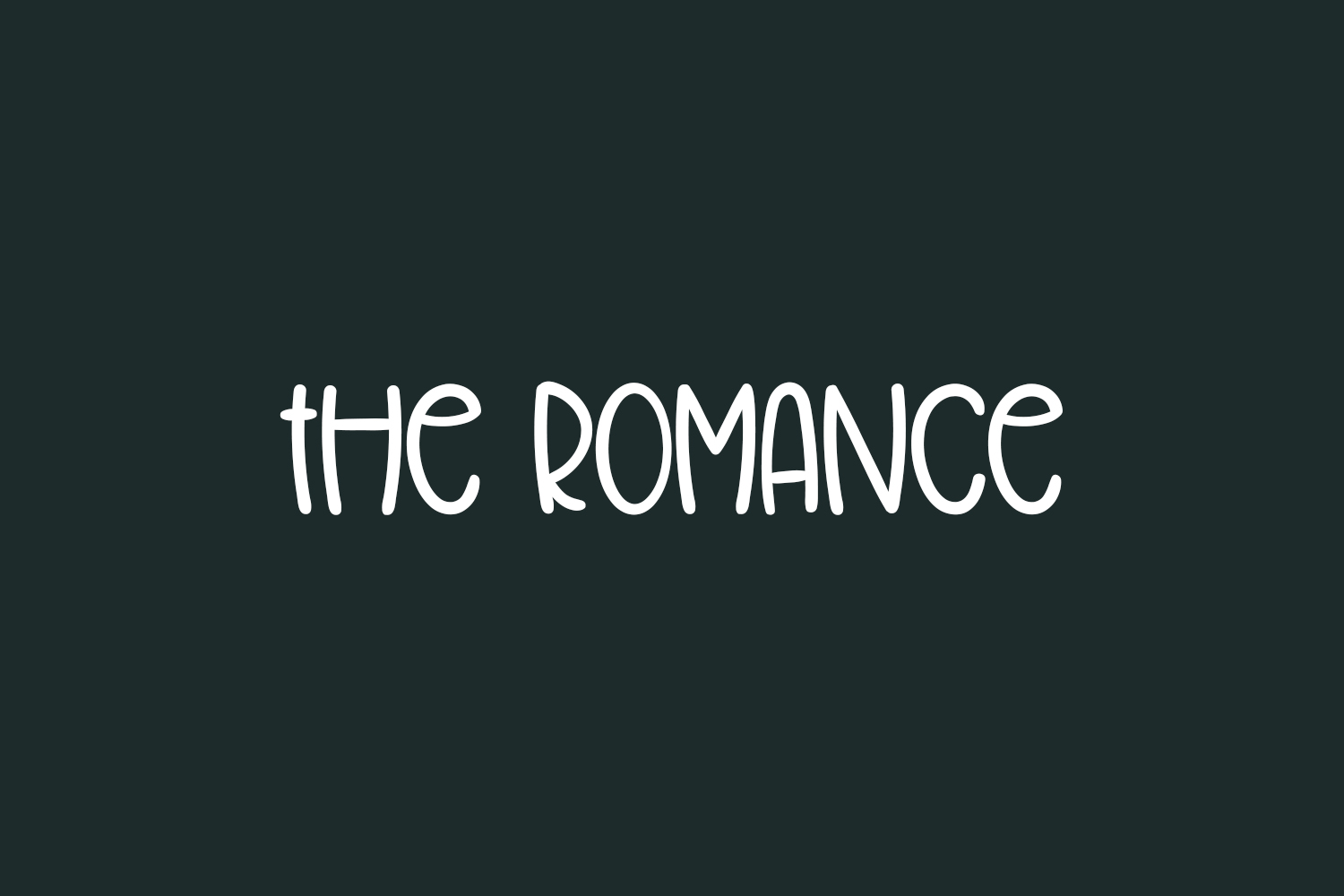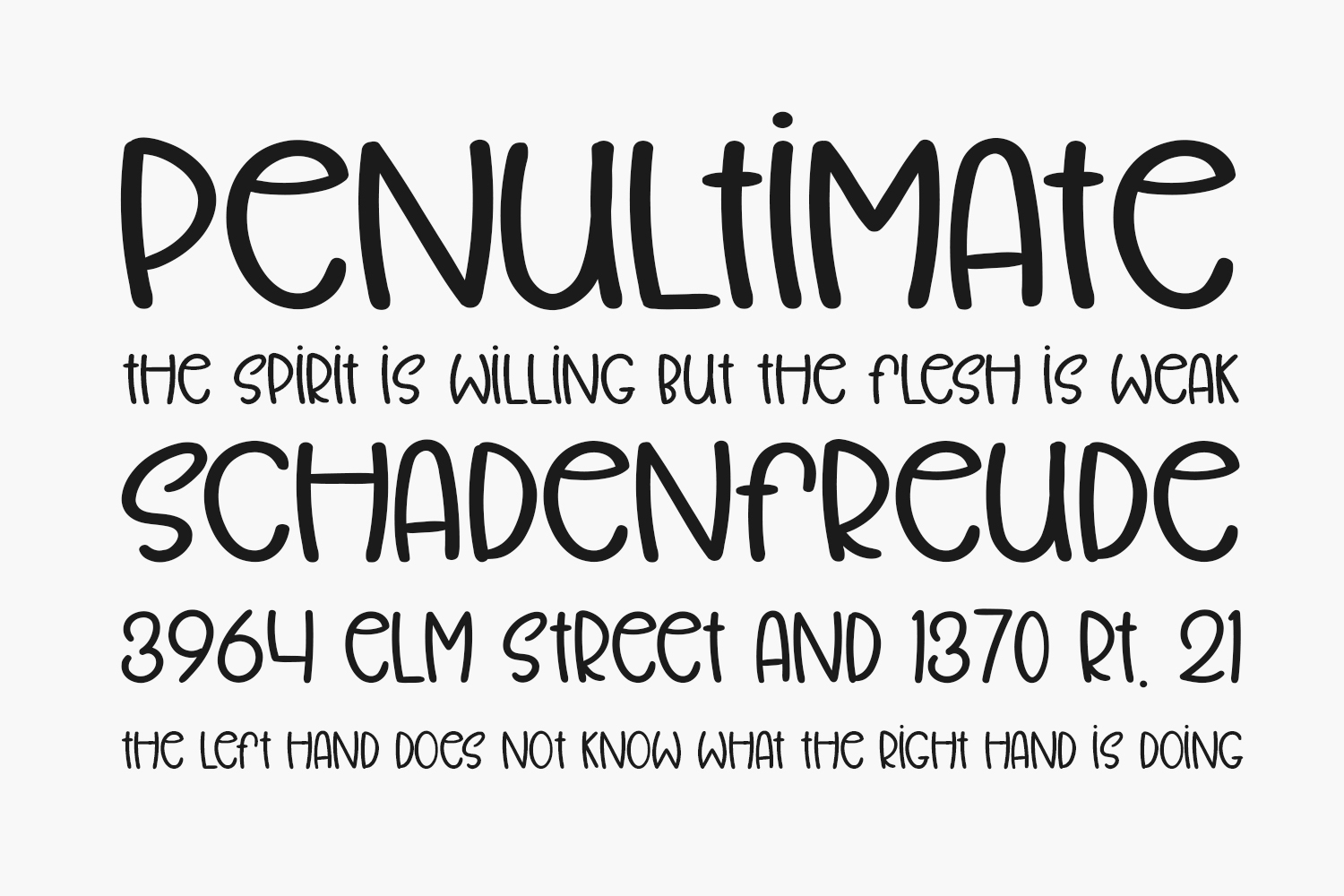
Introducing The Romance Free Font, a charming and approachable handwritten font tailored for children’s designs, chalkboard quotes, and educational materials. Infuse authenticity and a personal touch into your projects with this cool typeface. Confidence meets creativity as you incorporate The Romance, witnessing your designs come to life with a touch of realism and flair. The Romance Free Font was designed by Andang Prasetyo and is free for personal use only. Please purchase the full version for commercial use.
Designed by Andang Prasetyo